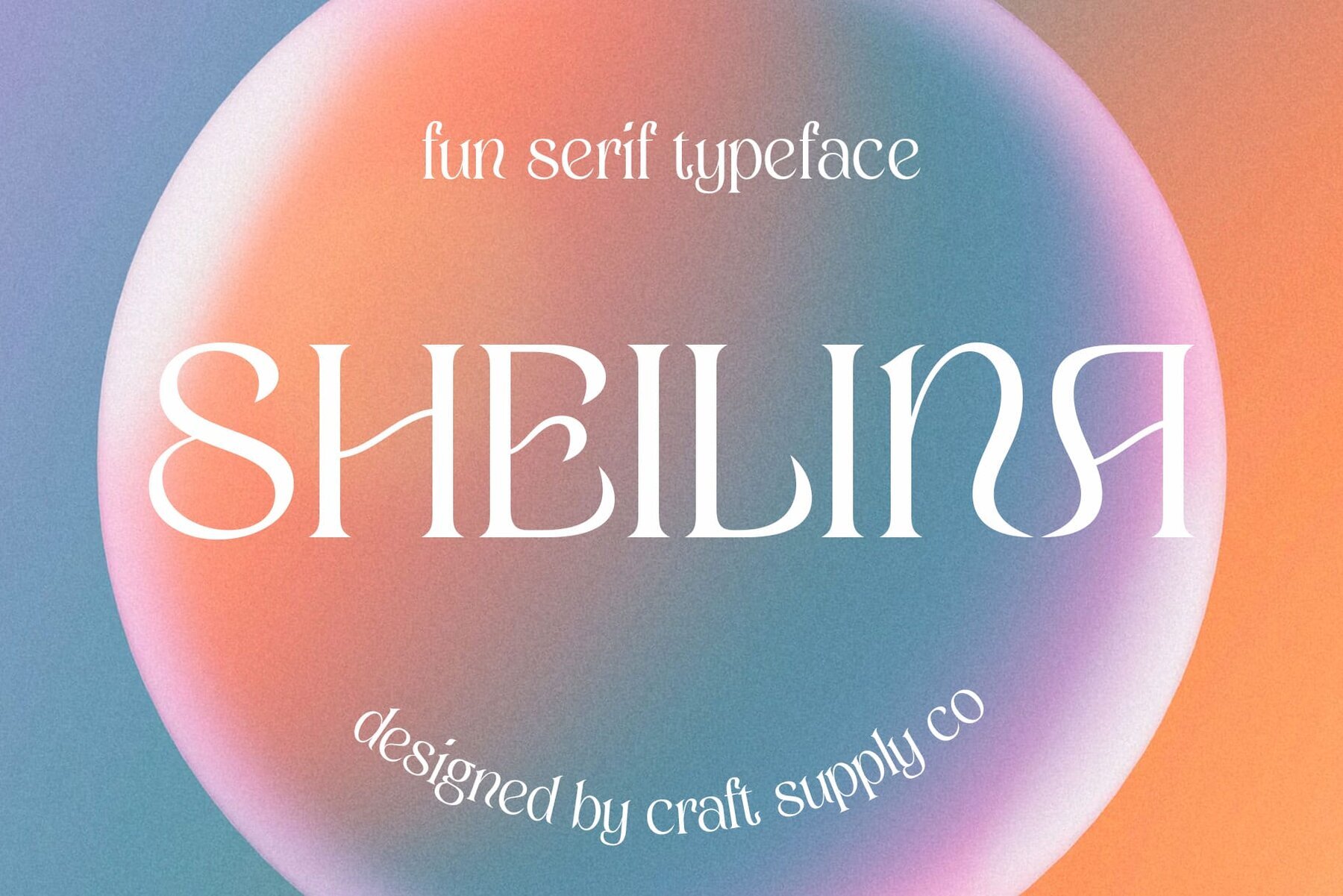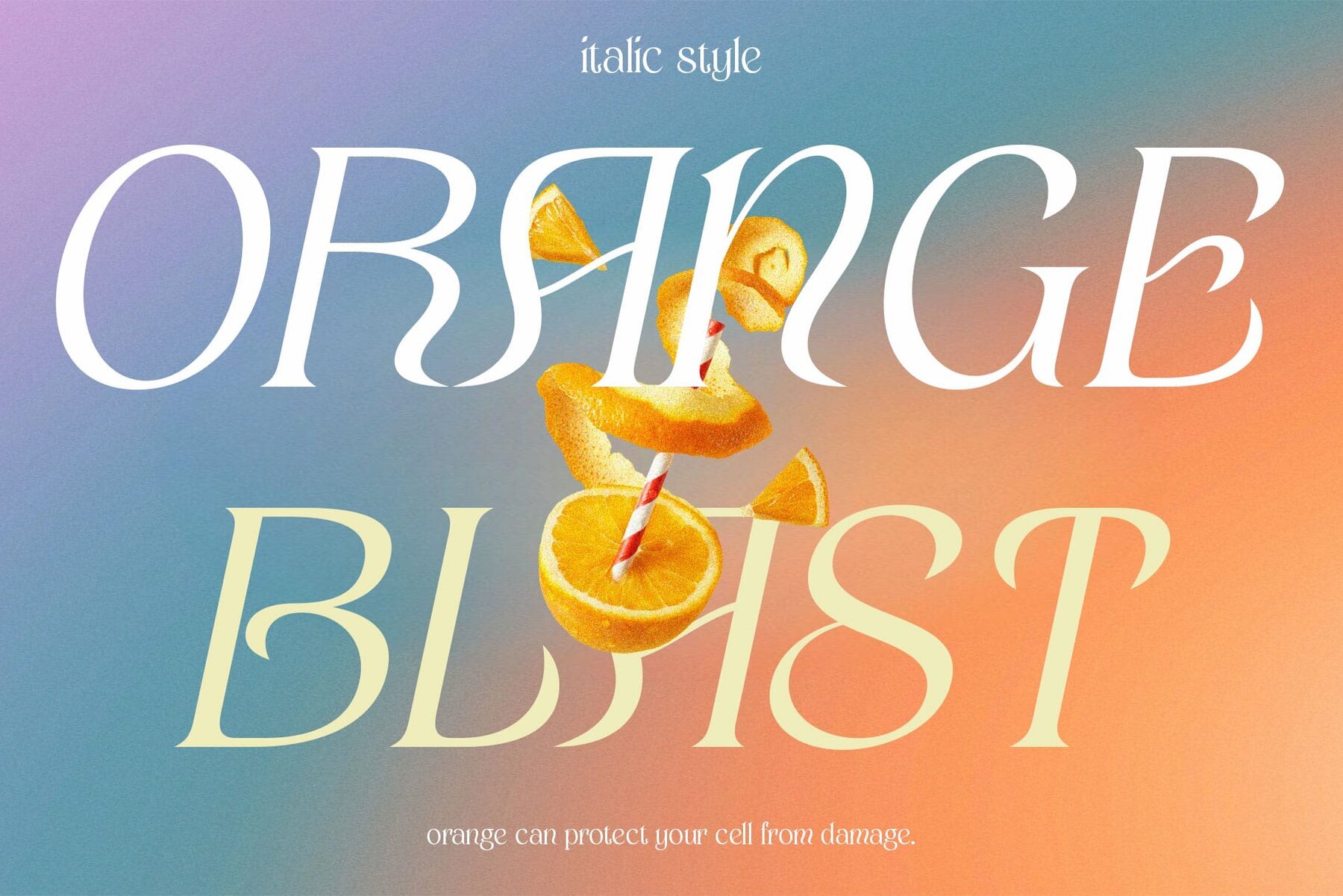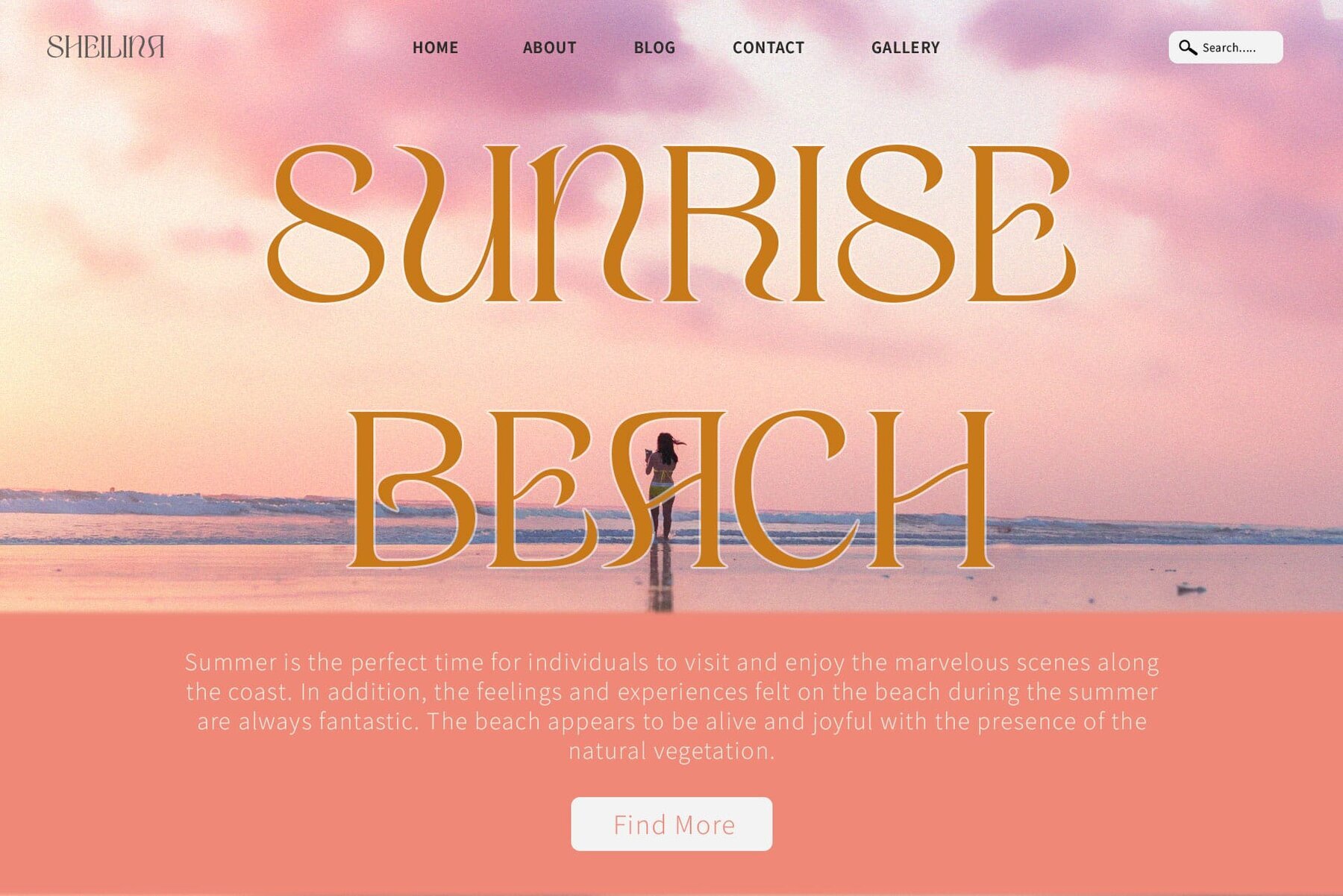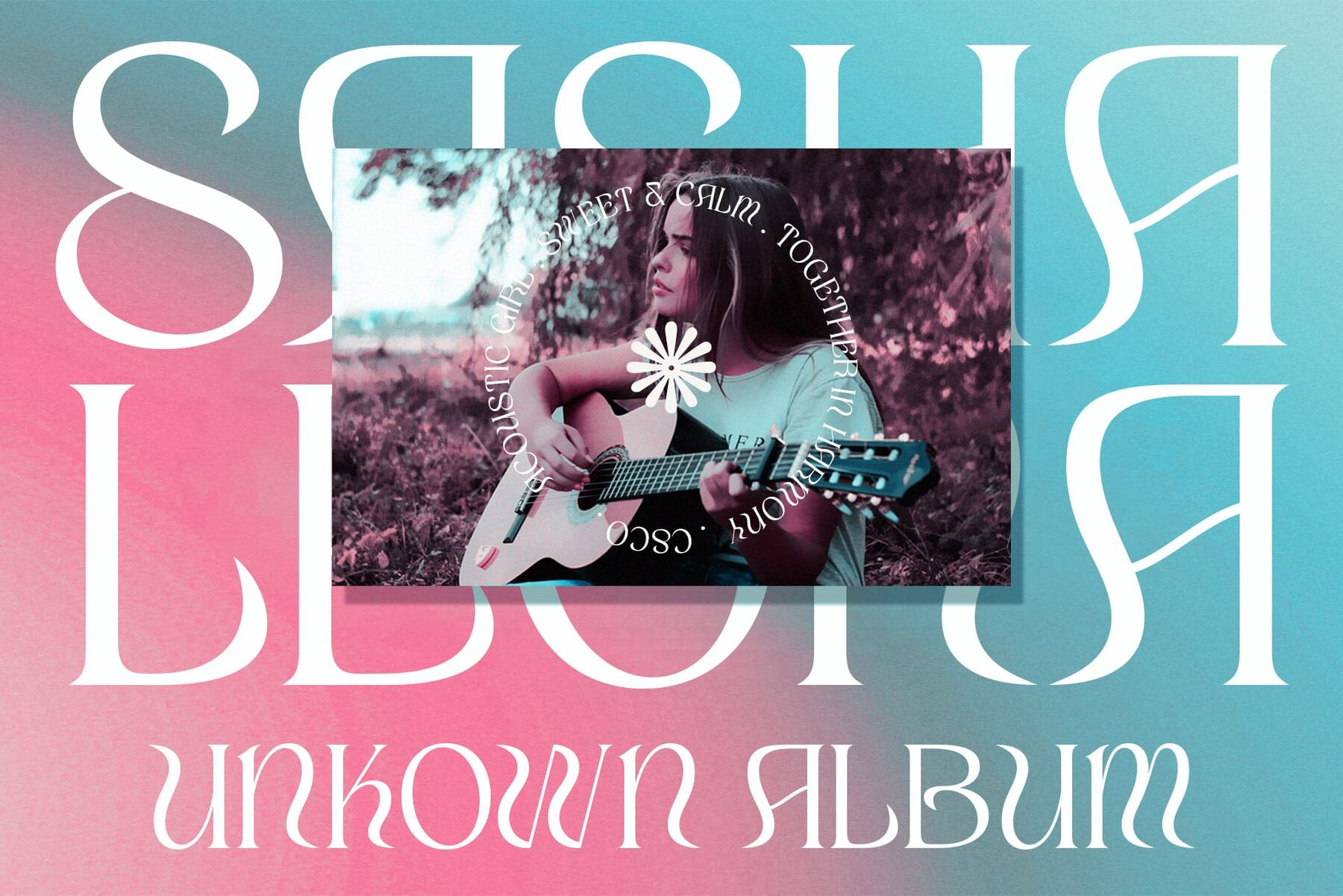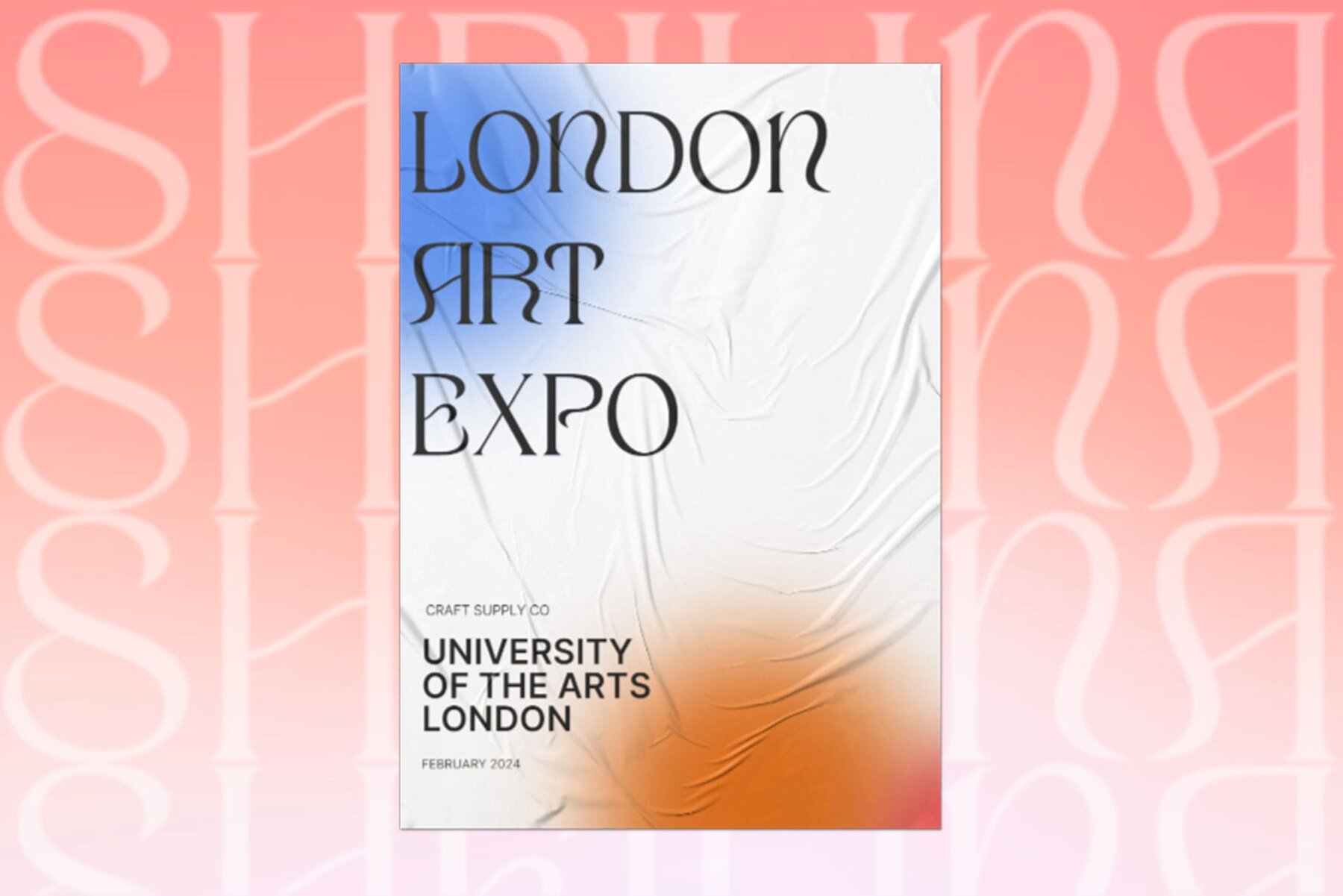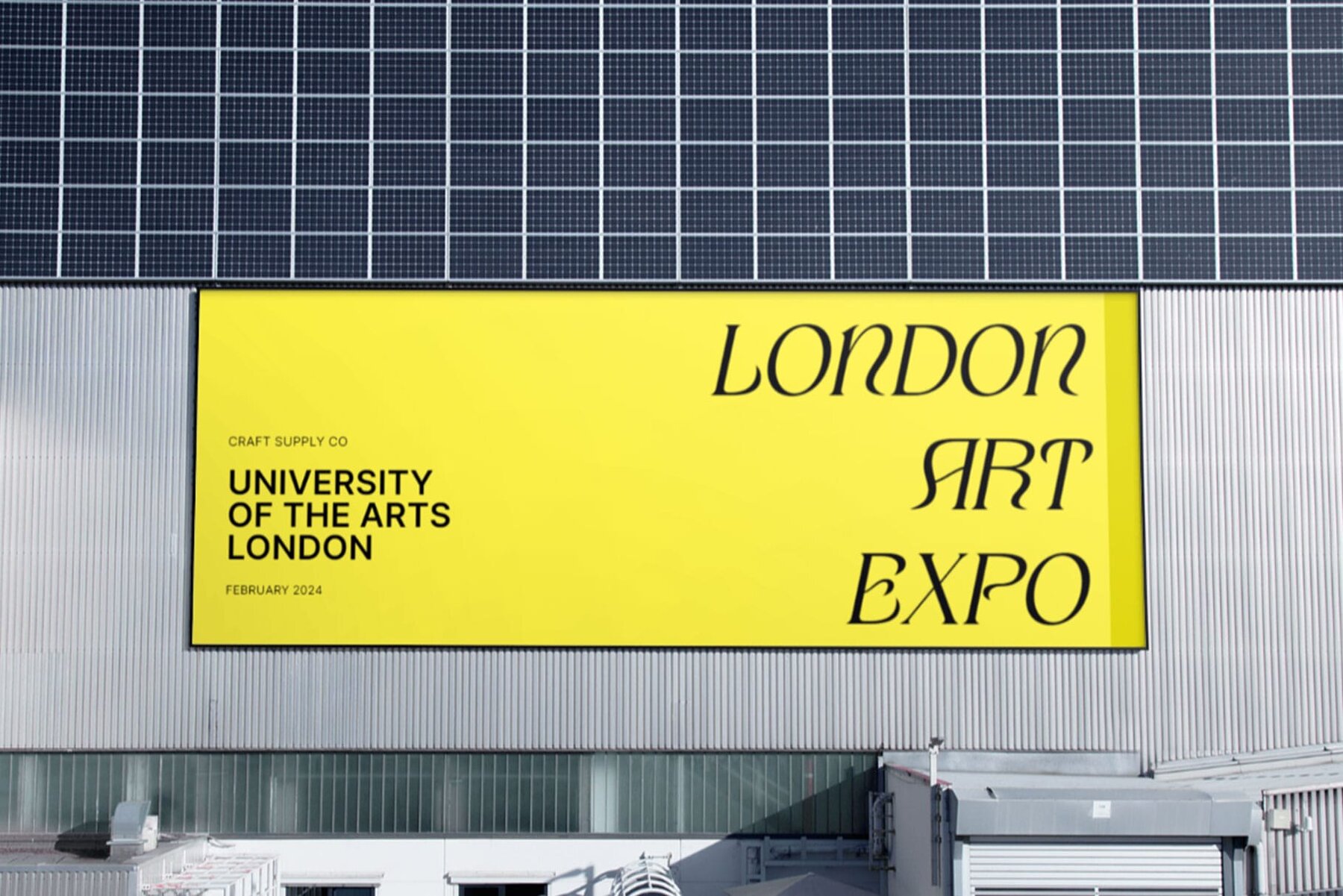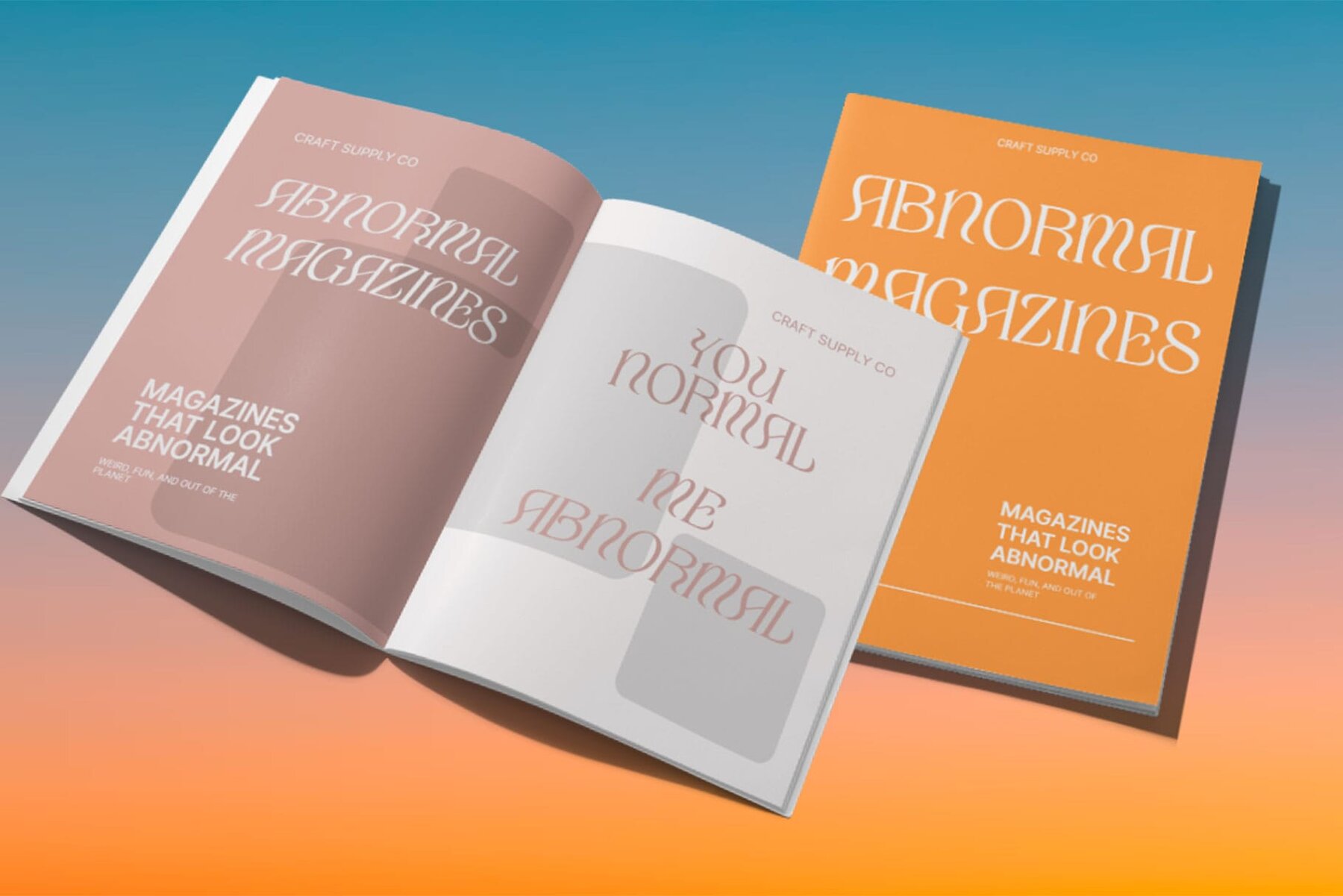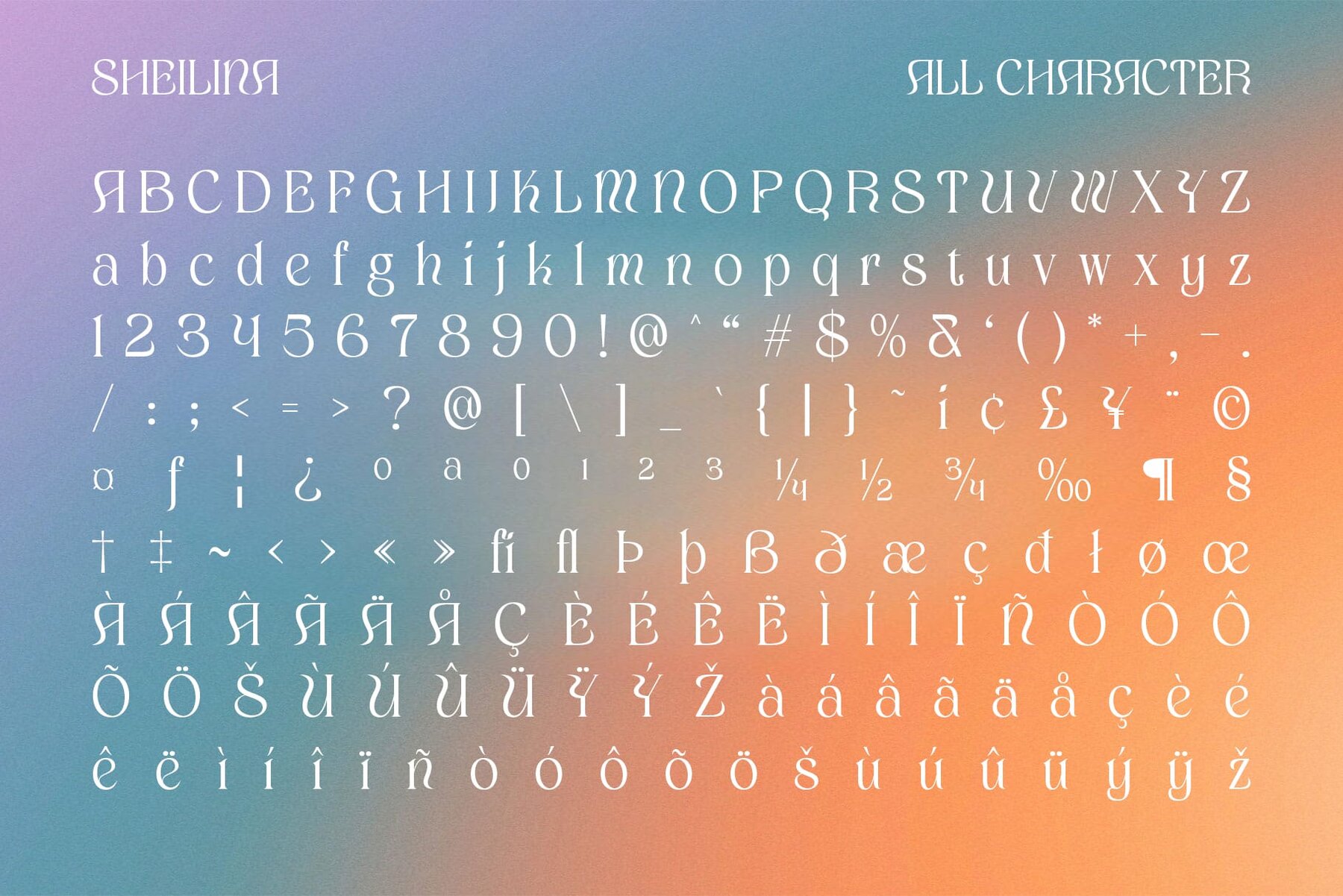
Sheilina Font
This font is a decorative serif with a unique and artistic flair. It combines curvy, flowing elements with elaborate, ornate details that give it a whimsical and expressive attitude. Ideal for creative projects that require a sophisticated yet playful and stylized look.